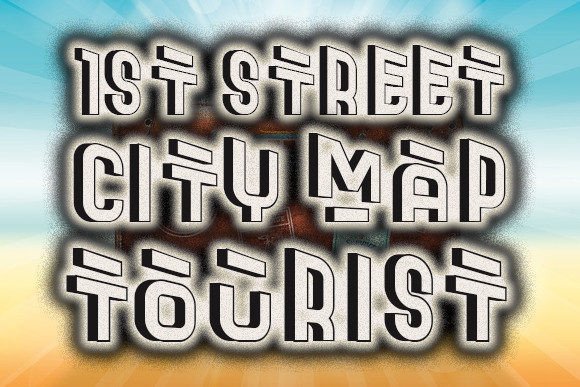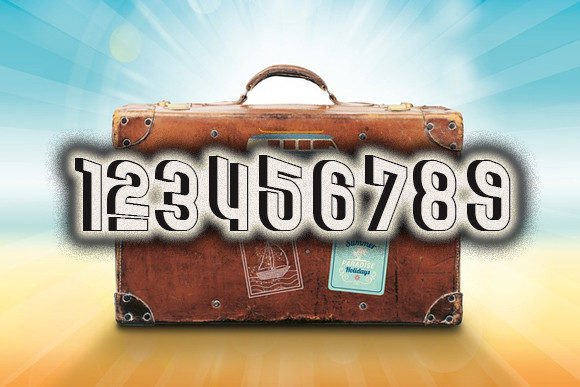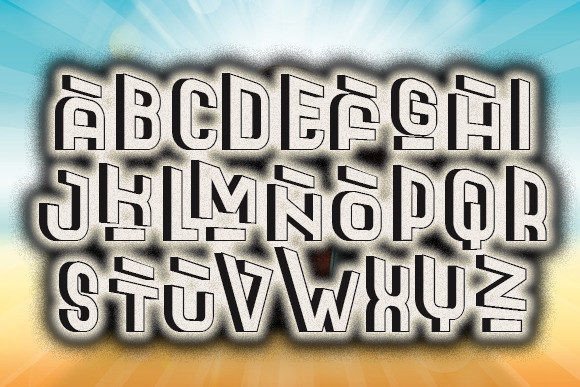
Introducing Foreigner Font: Elevate Your Designs with Stunning 3D Typography
Are you tired of using the same old fonts in your designs? Look no further! Foreigner Font is an incredible 3D typeface that will take your creations to the next level. With its unique and captivating style, this lovely display font is perfect for making a statement on posters, flyers, t-shirts, and more.
What Makes Foreigner Font So Special?
Foreigner Font is not just another font – it’s an experience. Its 3D effect adds depth and dimensionality to your designs, making them instantly stand out. The font’s sleek and modern aesthetic is perfect for designers and crafters looking to add a touch of sophistication to their work.
Endless Design Possibilities with Foreigner Font
One of the best things about Foreigner Font is its versatility. You can use it for a wide range of design projects, from:
- Posters: Create eye-catching posters that grab attention with Foreigner Font’s bold and 3D effect.
- Flyers: Make your flyers stand out from the crowd with this stunning font.
- T-shirts: Add a professional touch to your t-shirt designs with Foreigner Font’s sleek and modern style.
- Logos: Use Foreigner Font to create a memorable and impactful logo for your brand.
Key Features of Foreigner Font
Here are some key features that make Foreigner Font an awesome choice for designers and crafters:
- Unique 3D Effect: Foreigner Font’s 3D effect adds a new level of depth to your designs.
- Modern Aesthetic: The font’s sleek and modern style makes it perfect for contemporary designs.
- High-Quality: Foreigner Font is a high-quality font that is designed to deliver exceptional results.
- Easily Customizable: You can easily customize Foreigner Font to fit your design needs.
Tips for Using Foreigner Font Effectively
Here are some tips to help you get the most out of Foreigner Font:
- Use it as a Headline Font: Foreigner Font is perfect for headlines and titles, so use it to make a statement.
- Experiment with Colors: Try out different colors and gradients to add an extra layer of depth to your designs.
- Pair it with Other Fonts: Foreigner Font pairs well with other fonts, so don’t be afraid to experiment with different combinations.
In conclusion, Foreigner Font is an awesome 3D typeface that can elevate your designs to new heights. With its unique style, versatility, and key features, it’s perfect for designers and crafters looking to make a statement. So why wait? Download Foreigner Font today and start creating stunning designs that will leave a lasting impression!